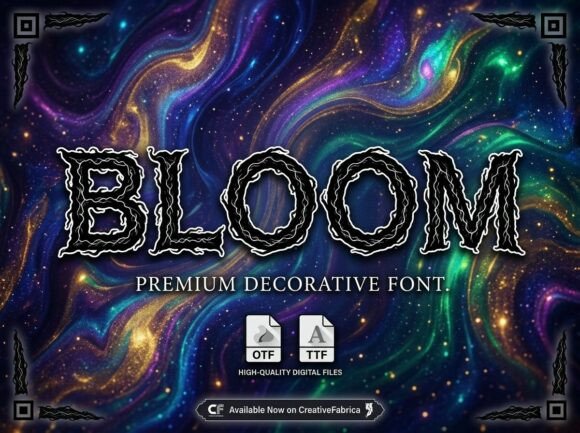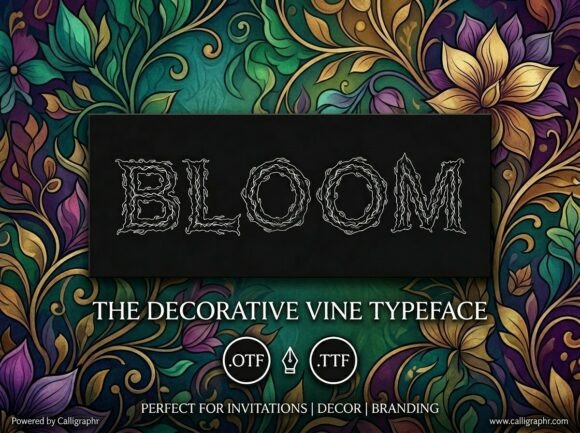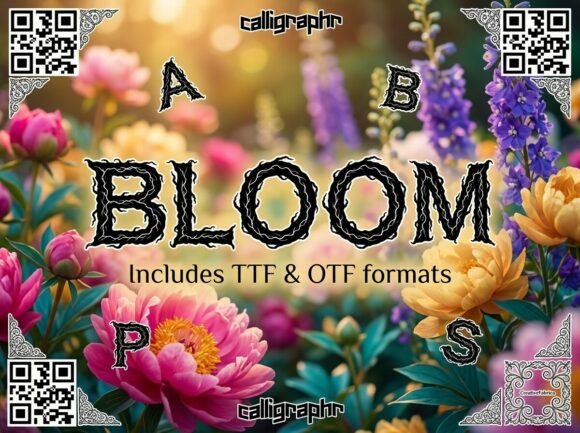
Bloom Font: Unlock the Magic of Organic Typography
In the realm of typography, few fonts have managed to capture the essence of mysticism and wonder as effectively as Bloom. This organic display typeface is a masterful blend of whimsy and sophistication, making it the perfect choice for designers and crafters seeking to infuse their projects with a touch of enchantment. In this article, we’ll delve into the unique characteristics of Bloom Font and explore its applications in various design contexts.
The Inspiration Behind Bloom
Bloom Font is the brainchild of a creative team that sought to craft a typeface that would evoke the feeling of a “wild-and-enchanted” world. The result is a font that combines the mystery of dark fairytale lore with the modern sensibilities of apothecary branding. The inspiration behind Bloom is evident in its rhythmic, hand-drawn “creeping vine” textures and tangled botanical silhouettes, which lend a sense of organic elegance to the font.
Key Features of Bloom Font
Bloom Font boasts a range of distinctive features that set it apart from other typefaces. Some of its key characteristics include:
- Massive, bold letterforms: Bloom’s letterforms are substantial and attention-grabbing, making them perfect for display purposes.
- Rhythmic, hand-drawn textures: The font’s “creeping vine” textures add a sense of organic movement and fluidity to the letterforms.
- Tangled botanical silhouettes: The intricate, interconnected silhouettes in Bloom’s design create a sense of depth and visual interest.
- Heavy structural weight: Bloom’s bold, substantial letterforms make it an excellent choice for headlines, titles, and other display text.
Applications for Bloom Font
Bloom Font’s unique blend of mysticism and modernity makes it an incredibly versatile typeface. Here are some of the design contexts where Bloom truly shines:
- Independent organic skincare identities: Bloom’s natural, organic aesthetic makes it a perfect fit for skincare brands seeking to convey a sense of earthy elegance.
- Fantasy book covers: The font’s dark, mystical undertones make it an excellent choice for fantasy book covers, adding a touch of magic and wonder to the design.
- Boutique greenhouse logos: Bloom’s botanical silhouettes and organic textures make it a natural fit for greenhouse logos, conveying a sense of growth and nurturing.
- Social media headers: Bloom’s bold, attention-grabbing letterforms make it perfect for social media headers, adding a touch of drama and visual interest to any design.
Tips for Working with Bloom Font
To get the most out of Bloom Font, here are a few tips to keep in mind:
- Experiment with color: Bloom’s organic aesthetic lends itself well to a range of earthy, natural color palettes. Experiment with different shades of green, blue, and purple to find the perfect fit for your design.
- Play with texture: Bloom’s hand-drawn textures and silhouettes create a sense of depth and visual interest. Experiment with different textures and layering techniques to add depth to your design.
- Balance bold and delicate elements: Bloom’s bold letterforms can be overwhelming if not balanced with more delicate elements. Experiment with different font combinations and design elements to create a sense of visual harmony.
Bloom Font is a true standout in the world of typography, offering a unique blend of mysticism, organic elegance, and modern sophistication. Whether you’re a designer, crafter, or simply a typography enthusiast, Bloom is sure to captivate and inspire. With its heavy structural weight, magical personality, and versatility, Bloom Font is the perfect choice for any project seeking to cultivate a sense of wonder and enchantment.